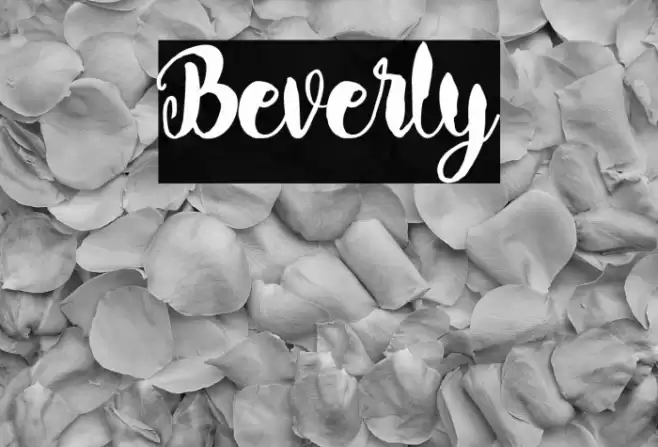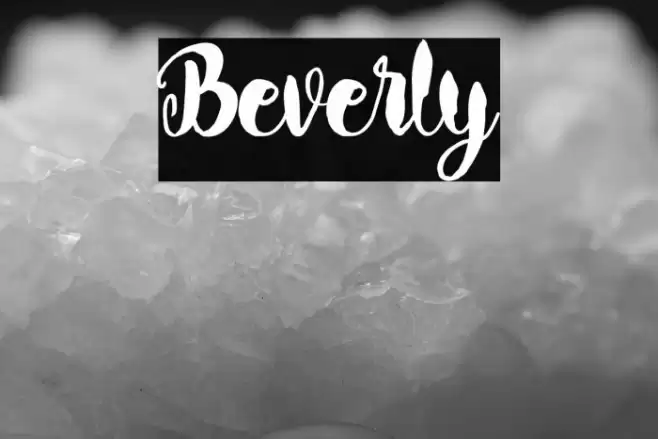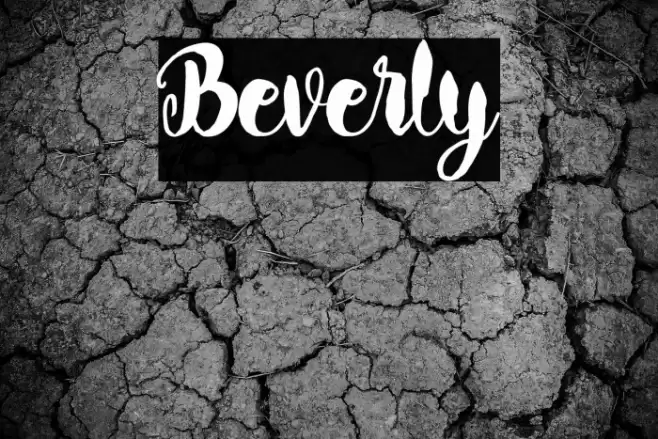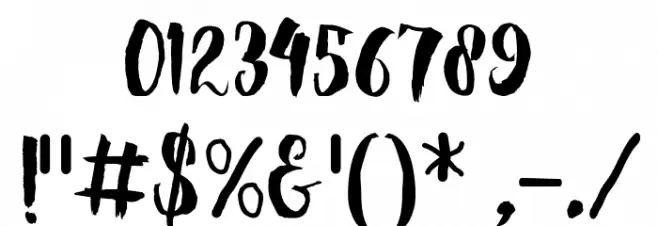
Beverly Font
Beverly Description
This font features an elegant and expressive script style with a bold presence. The characters are crafted with fluid strokes and a calligraphic flair, giving it a dynamic and artistic appearance. The uppercase letters are ornate, with swirls and loops that add a decorative touch, while the lowercase letters maintain a cohesive flow. The numbers are consistent with the overall style, offering a playful yet sophisticated look. Special characters are designed with the same attention to detail, ensuring versatility in various design contexts. The font's boldness and unique character make it suitable for projects that require a touch of elegance and creativity.
An elegant and expressive script font with bold, calligraphic strokes from Regular fonts.
- Font: Beverly
- Proposed Projects: Ideal for wedding invitations, branding, logo design, and artistic posters.
- Use Case: Logos, Headlines, Invitations